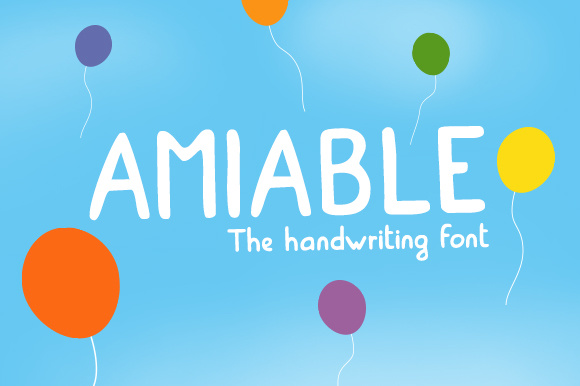
HomeScript FontsAmiable Font Script Fonts Amiable Font FacebookXPinterestWhatsApp About Amiable Font A cutesy handwritten script. Based on the designers personal Handwriting. DOWNLOAD ON CREATIVE FABRICAThis font is sold and delivered by Creative Fabrica. Font Canyon may earn a commission if you buy through this link. People also explored Quenion Font Ginger Plum Font Forland Font Faltige Font Hollyhock Font Pantera Hardwork Font Rouleaux Font The Storybook Font 292 0 TagsAmiable Font Previous articleHappy Monday FontNext articleAlianda Script Font LEAVE A REPLY Cancel reply Comment: Please enter your comment! Name:* Please enter your name here Email:* You have entered an incorrect email address! Please enter your email address here Website: Save my name, email, and website in this browser for the next time I comment. Personal Use Free Stentiga Personal Use Free Read more about this font Fat Max Personal Use Free Read more about this font Sushi Day Personal Use Free Read more about this font Boronic Personal Use Free Read more about this font BLOG How to Cut Any Font on Cricut: Convert a Font to SVG (Free) Turn any font into a clean SVG so it cuts crisp on Cricut - a quick 3-step workflow using a free font-to-SVG tool. The 10 Best Handwriting Fonts to Add Personality to Your Designs Fonts That Capture the Spirit of New York City Free Fonts Risk: Why Free Fonts Can Be Dangerous for Designers